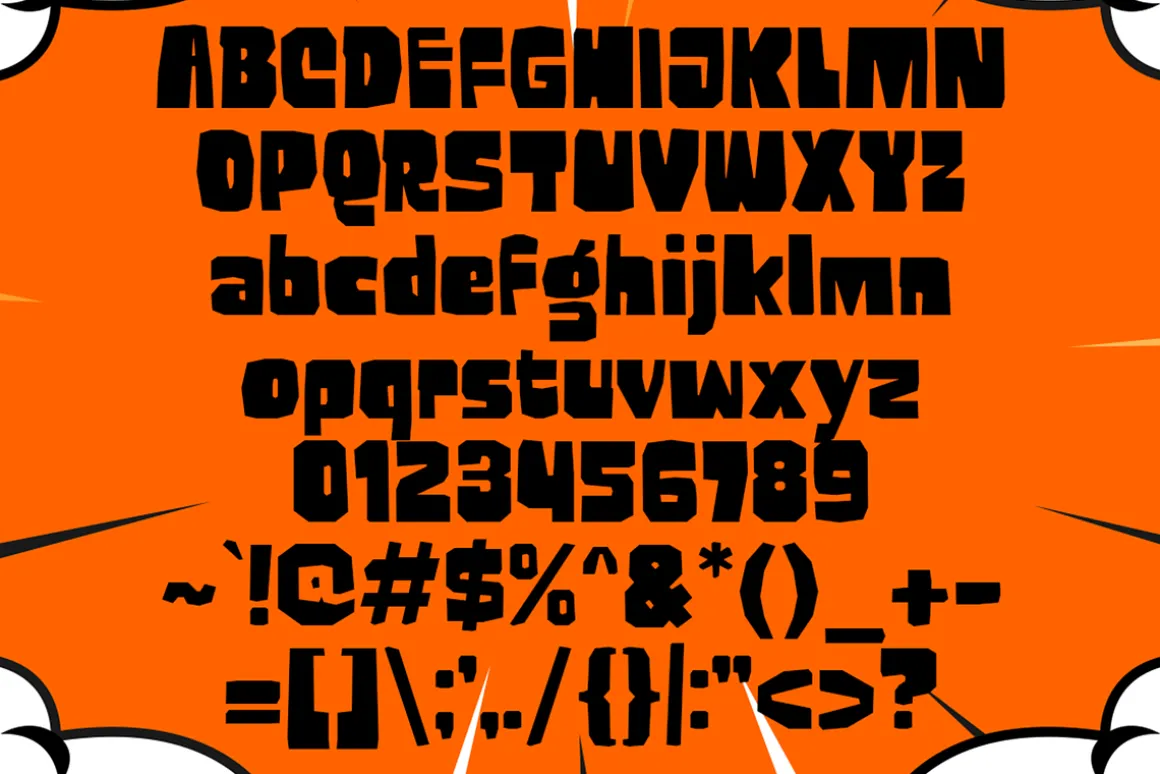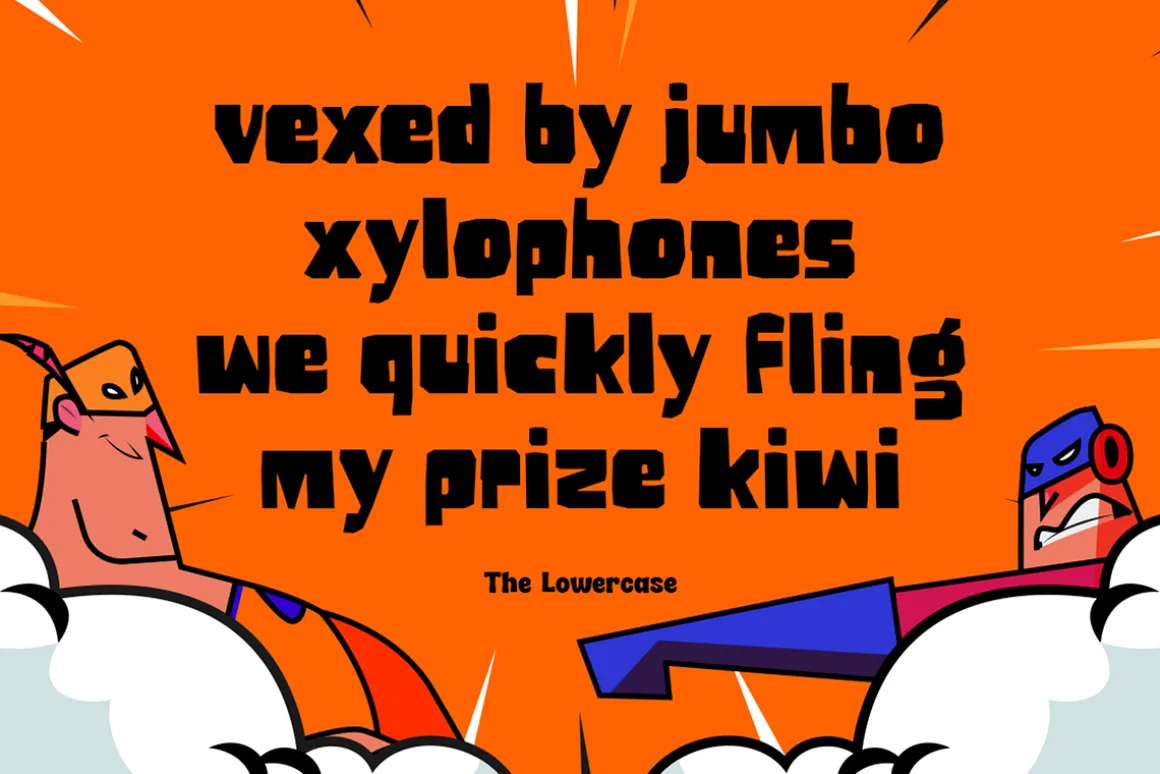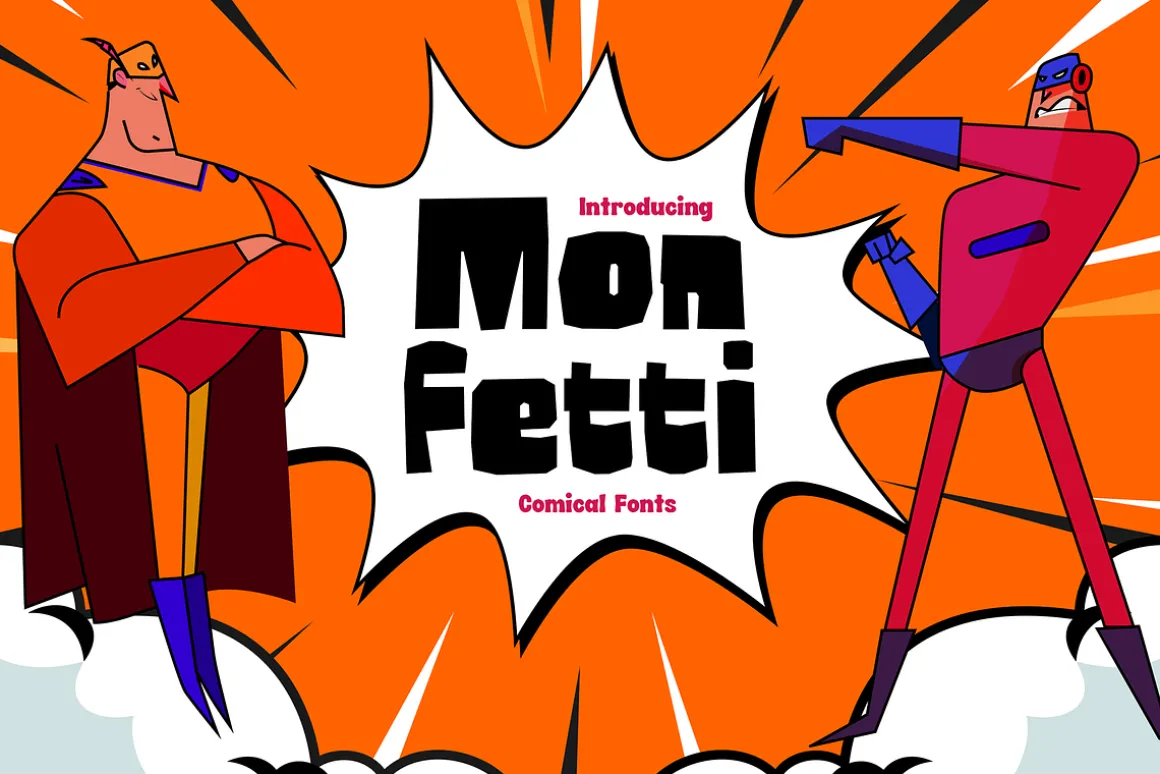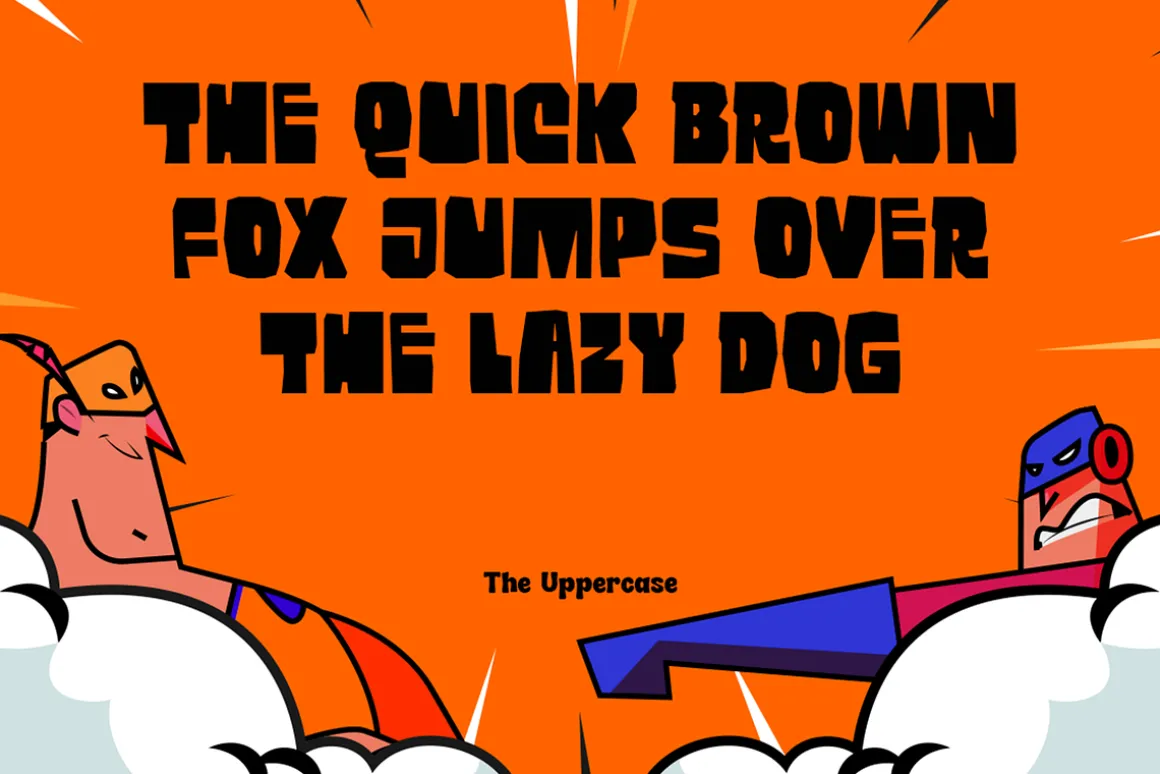
Bring Your Designs to Life with Monfetti!
Channel the playful spirit of vintage comics with Monfetti! Bold, bouncy, and bursting with fun, this font is inspired by the unmistakable charm of retro cartoon lettering. Its juggly, wobbly shapes bring a dynamic and animated feel, perfect for adding that comic-book flair to your designs.
Perfect for:
- Lively logos and branding
- Comic-inspired visuals
- Kids’ stories and playful designs
- Eye-catching packaging
With its exaggerated characters and lively movement, Monfetti transforms your designs into something straight out of a classic comic strip. Whether you’re crafting posters, headlines, or packaging, this font brings a burst of personality, making your work pop with fun and nostalgia.
Get that comic-book punch with Monfetti!